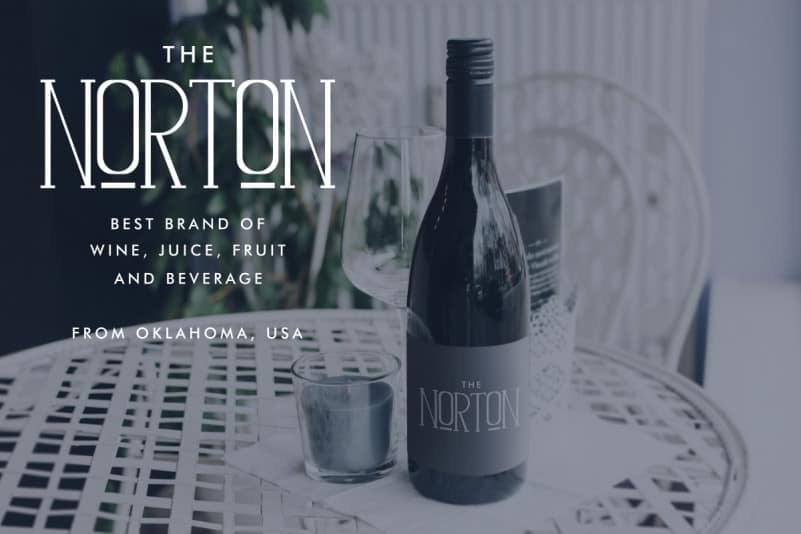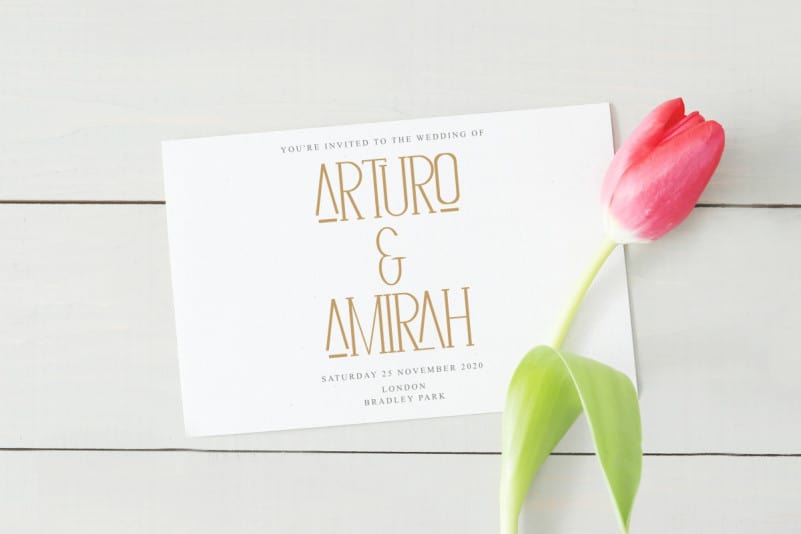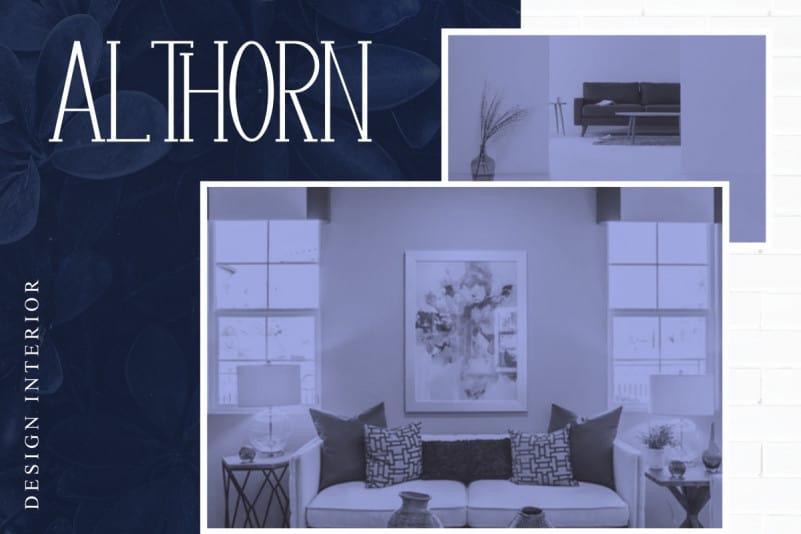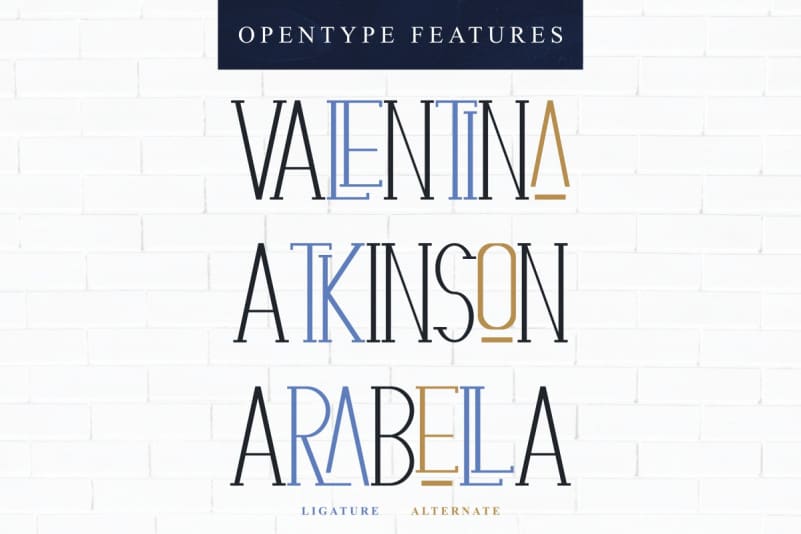
Authoria Serif Font
Authoria Serif Font is crafted carefully in every its single letter so we can make sure it has old-fashioned serif display font with Vintage theme but can also work on modern projects.